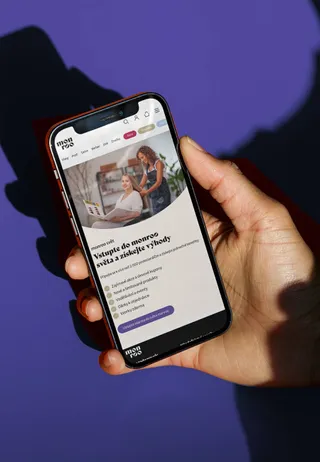
Tailoring Bely for Monroo
Bely
For the monroo visual identity, LEMON DESIGN by Štěpán Holič commissioned TypeTogether to create a customised version of Bely Display for use in the monroo logo system. Originally designed by Roxane Gataud, TypeTogether’s first Gerard Unger Scholarship winner, Bely was modified to become a distinctive headline and logo typeface tailored specifically to monroo, a specialist supplier of beauty products to hair styilists in the Czech Repulbic and Slovakia.
The monroo identity is built around a close relationship between logo and type. At its centre is a customised version of Bely Display, adapted into Bely Monroo for use in headlines, callouts, and expressive brand messaging. The modifications sharpen the connection between the typeface and the logo: the lower serifs were removed from the Bely Display alphabet, giving the headline style a cleaner, more distinctive rhythm while keeping the elegance and contrast of the original typeface.
The most characteristic changes are concentrated in the lowercase r and o, which carry the visual DNA of the monroo logo. The original lowercase “r” was replaced with a custom version whose ball terminal visually corresponds to the scale of the classic Bely dot, allowing it to sit naturally within text settings such as monroo.eu. The lowercase “o” was also replaced with the monroo version, with an additional mirrored alternate added. These alternate “o” forms allow doubled letters to become an active graphic feature rather than a neutral repetition.
Together, these changes transform Bely from a headline typeface into a brand-specific typographic voice. The customised forms make it possible to extend the monroo logo logic into words, headlines, and short marketing phrases, creating a playful but controlled system. Through OpenType contextual alternates, the typeface can react dynamically to combinations such as “oo”, adjusting the left- and right-leaning forms so the logo’s circular, grape-like, sunlit motif can reappear naturally in typography.
The result is not simply a logo adaptation, but a coherent typographic tool: a modified headline font that carries the monroo identity across print, web, and promotional communication while preserving consistency with the brand’s visual manual.